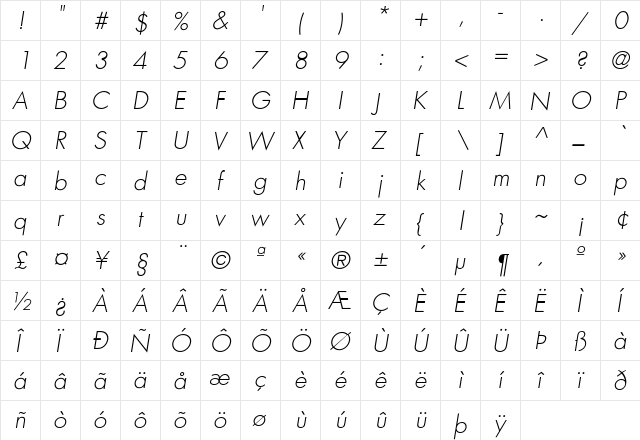
Futura-LightOblique Regular
Design Context for Futura-LightOblique Typeface
Futura-LightOblique channels digital-age aesthetics through its sharp, structured letterforms — ideal for brands that want to signal innovation. The slanted form adds forward momentum and visual energy. Its slender proportions lend an understated elegance to any composition.
Pro Tip: Use Futura-LightOblique in combination with a neutral sans for body text. Let it define the brand voice in headlines while keeping reading comfortable elsewhere.